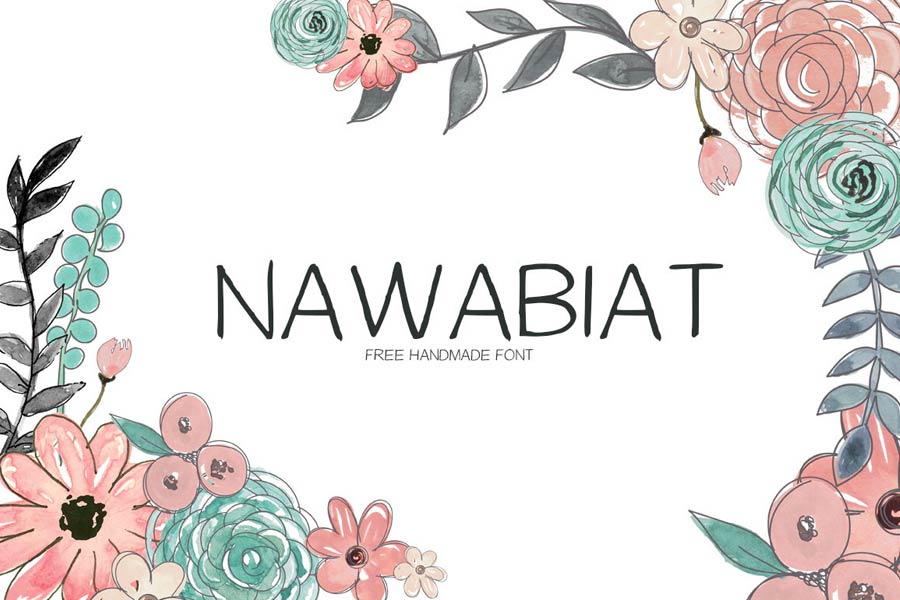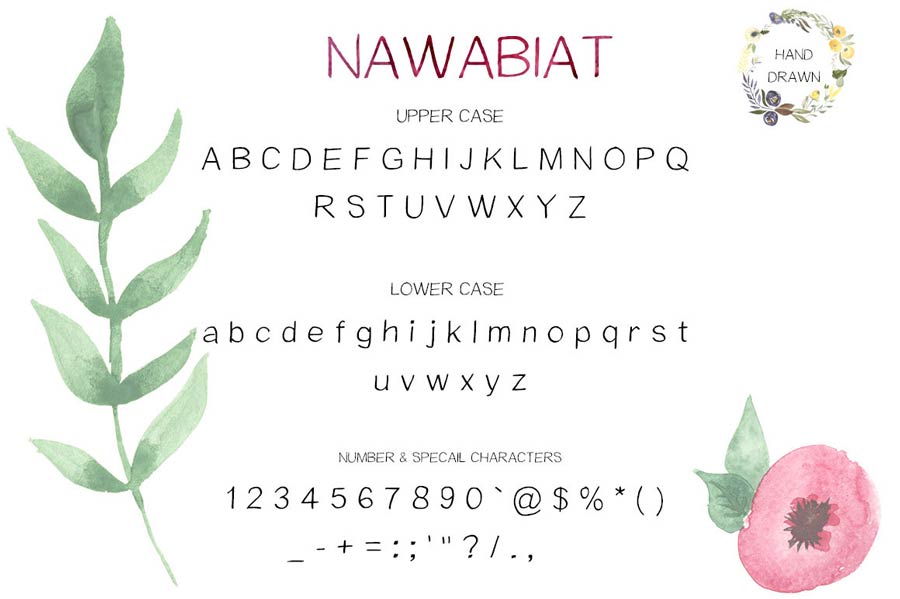
Nawabiat is a neat and regular handwriting fonts that works well in many design applications. You can use this font to bring out the sense of personalisation, and casual feel to your poster, graphic designs, print works and more. It comes with less glyphs but it’s enough for normal usage.
- Designer: Syed Faraz Ahmad
- Category: Handwriting